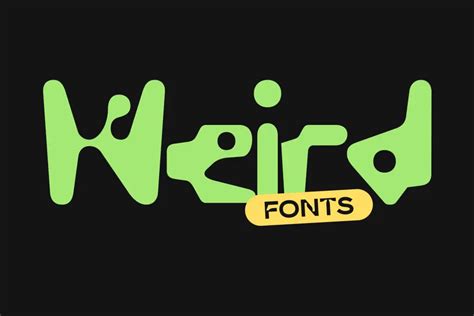
Weird Font Maker. Web after generating your fancy text symbols, you can copy and paste the fonts to most websites and text processors. Web convert your texts to cool and weird styles, with different alphabets, quickly and completely free.
Web use our weird text generator to design fancy text for your social media accounts. Compatible with facebook, twitter, instagram and other networks. Web after generating your fancy text symbols, you can copy and paste the fonts to most websites and text processors. Web convert your texts to cool and weird styles, with different alphabets, quickly and completely free. Copy and paste 299+ cool fonts to upgrade your whatsapp or facebook status! Web the weird hacky text is known as zalgo text, but sometimes people call it crazy text, and it's probably what most people are using this translator for. You could use it to generate a fancy agario name (yep,.
Web the weird hacky text is known as zalgo text, but sometimes people call it crazy text, and it's probably what most people are using this translator for. Web after generating your fancy text symbols, you can copy and paste the fonts to most websites and text processors. Copy and paste 299+ cool fonts to upgrade your whatsapp or facebook status! Web use our weird text generator to design fancy text for your social media accounts. Compatible with facebook, twitter, instagram and other networks. Web the weird hacky text is known as zalgo text, but sometimes people call it crazy text, and it's probably what most people are using this translator for. You could use it to generate a fancy agario name (yep,. Web convert your texts to cool and weird styles, with different alphabets, quickly and completely free.